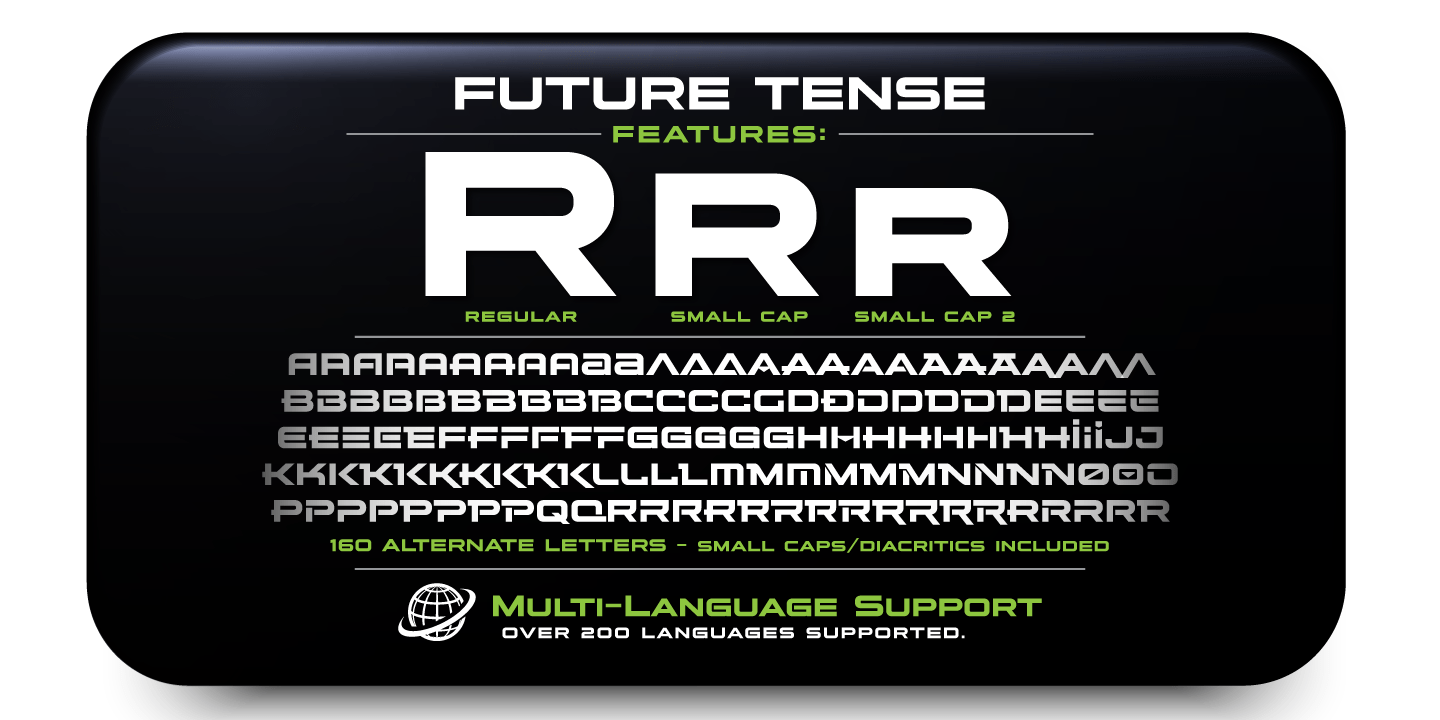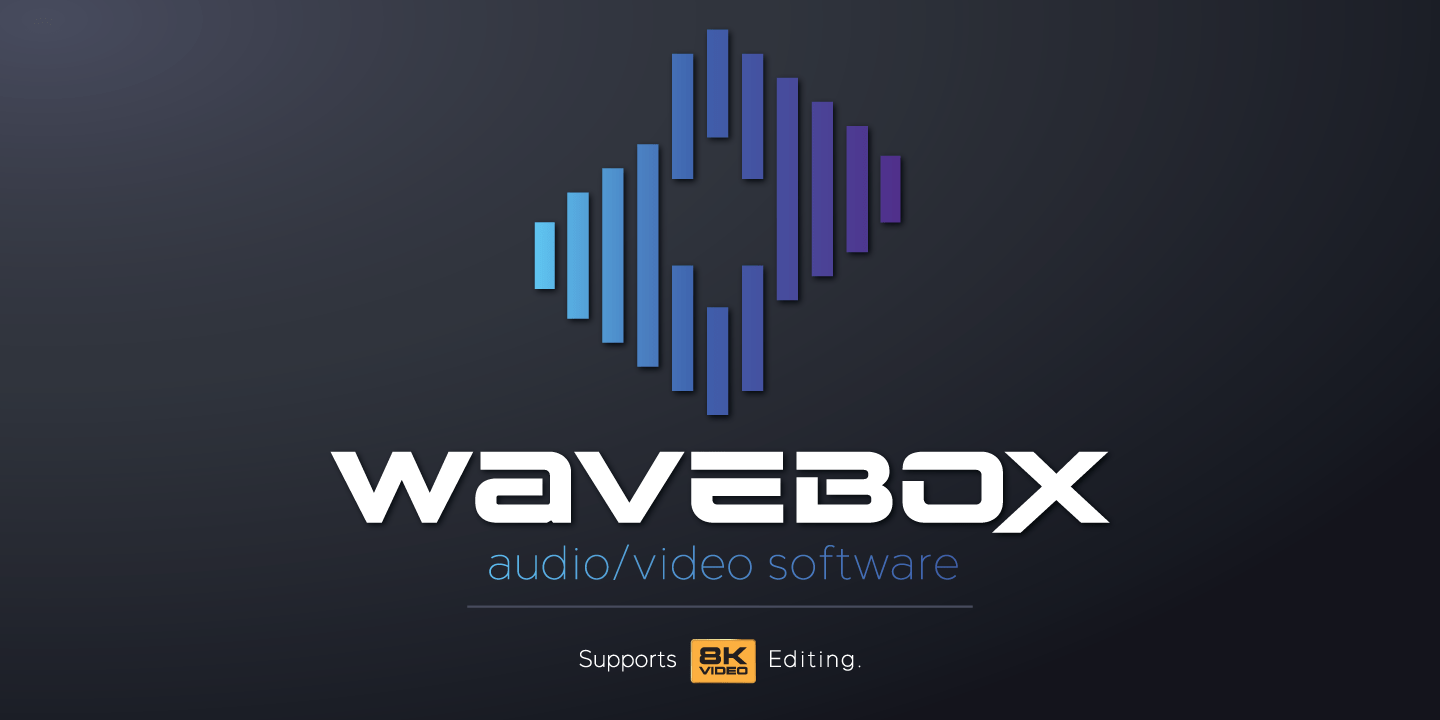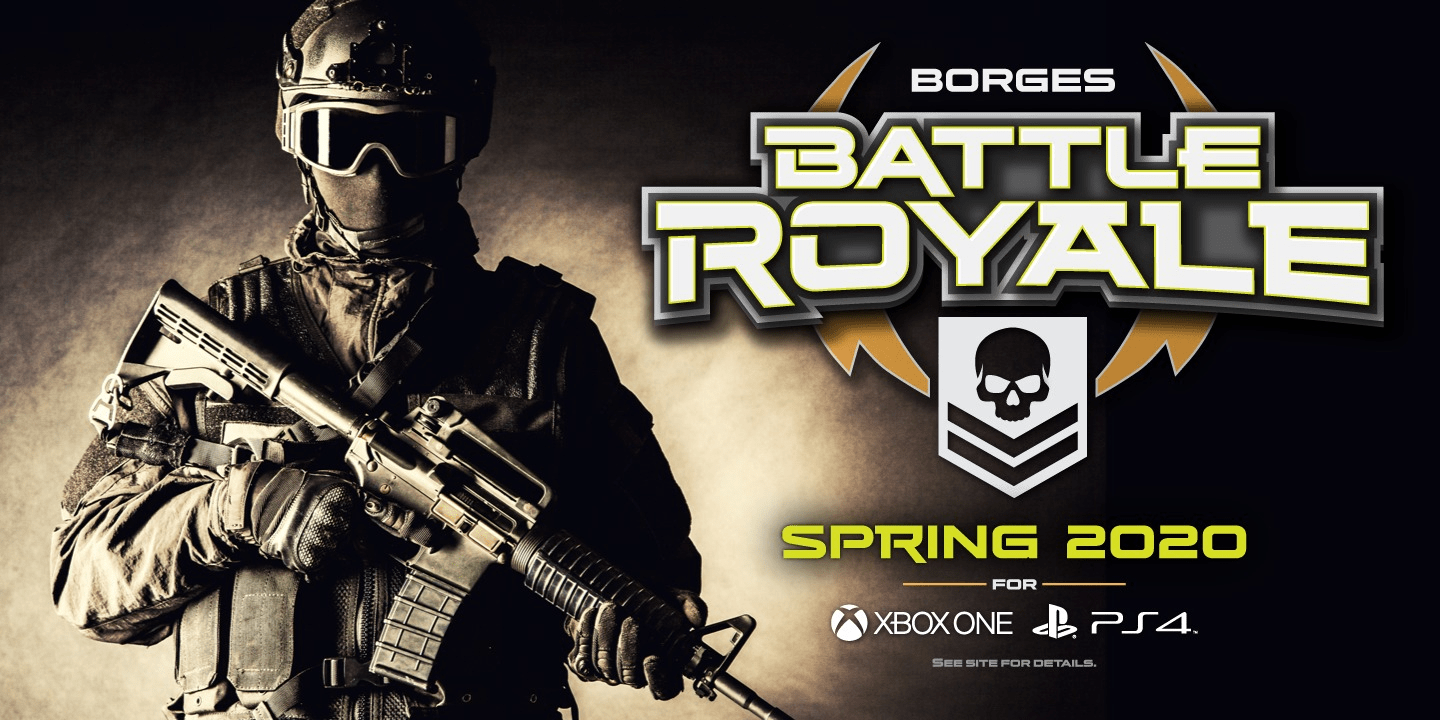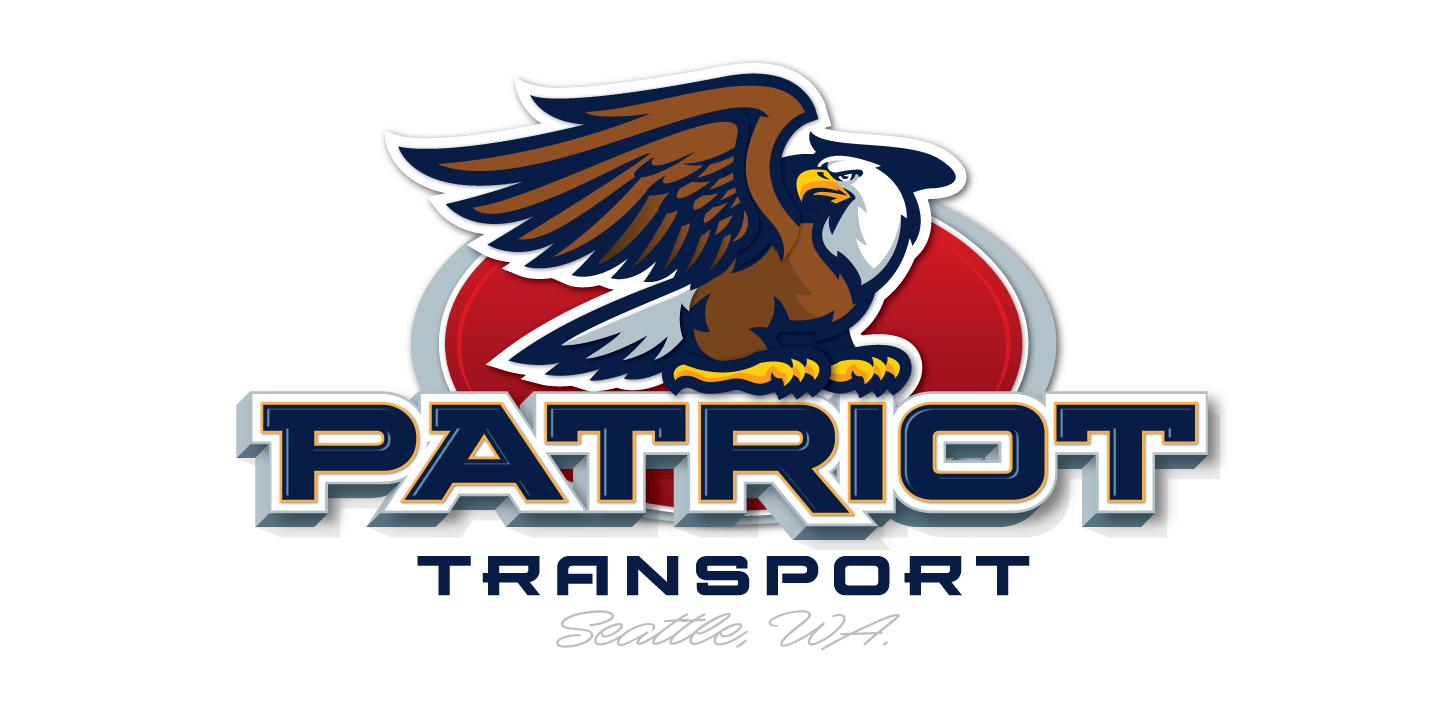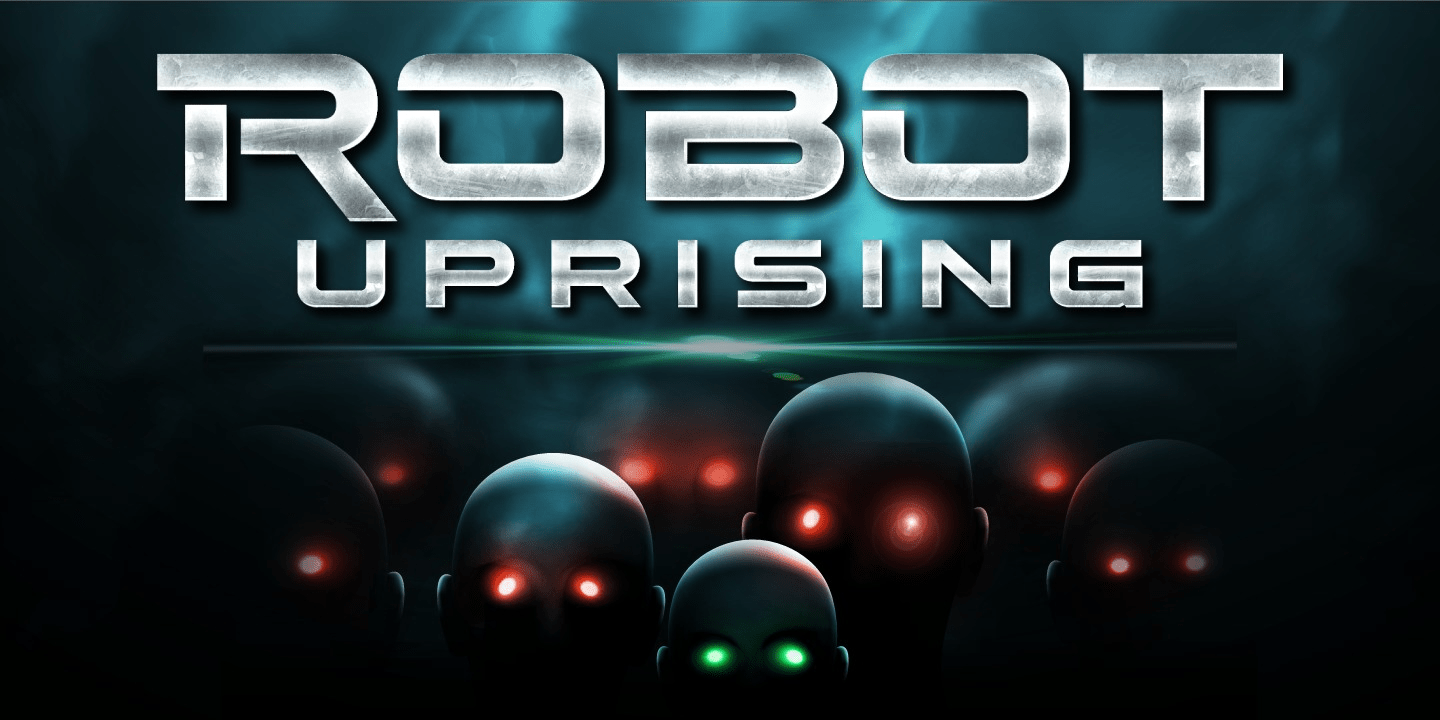
Future Tense
Font Family by CBdO Fonts
Future Tense is a modern type style that is perfect for logos, film, video games, packaging, signs, and more. Charles Borges de Oliveira & Vassil Kateliev's attention to letter forms insures extreme legibility without sacrificing this modern style. The 160 alternate letters will keep your designs looking fresh and different. A unique feature included in Future Tense is the small caps have their own set of small caps. This allows 3 different looks for each letter.
What's included in Future Tense:
• 160 alternate letters makes designing eye catching logos rewarding! The alternates are included in the small caps and second small caps as well.
• Future Tense is a titling face that contains small caps as well as a second set of small caps.
• Multilingual: support for over 200 languages.
• Over 2,500 glyphs make up Future Tense.
Take your designs to the next level with Future Tense.
Future Tense was designed and created by Charles Borges de Oliveira and Vassil Kateliev.